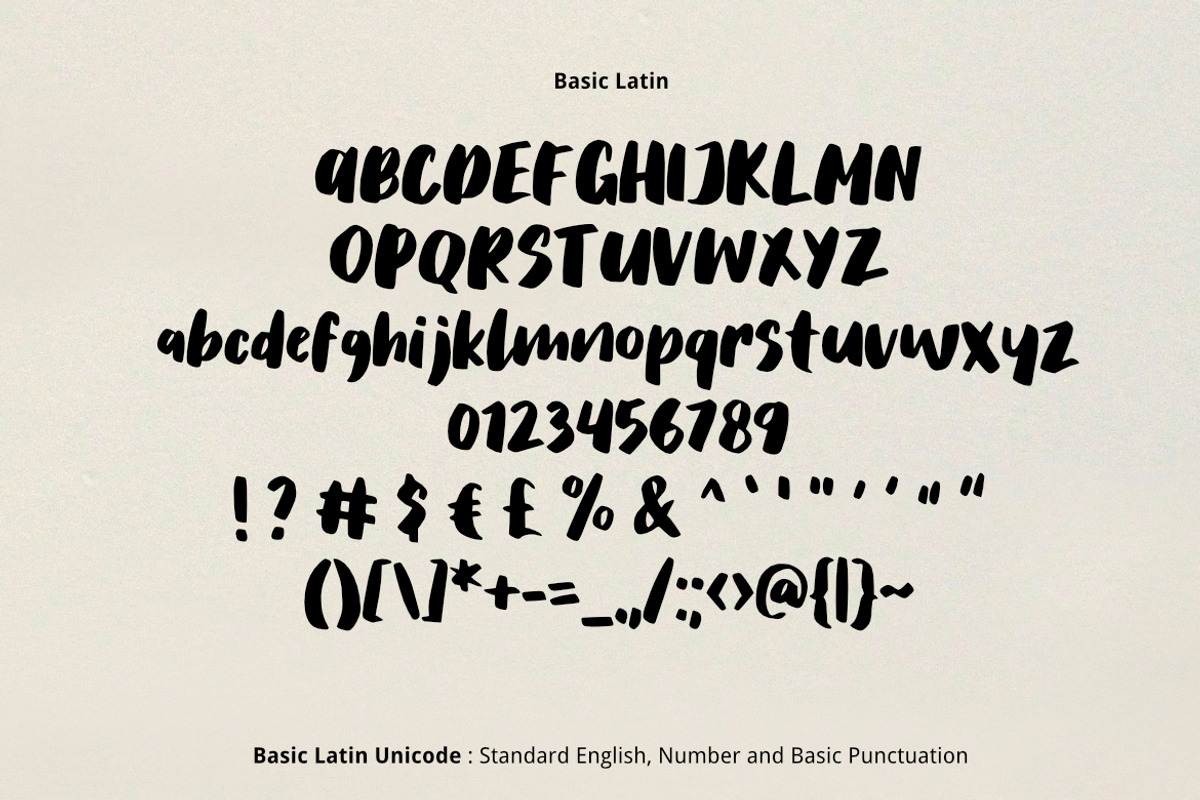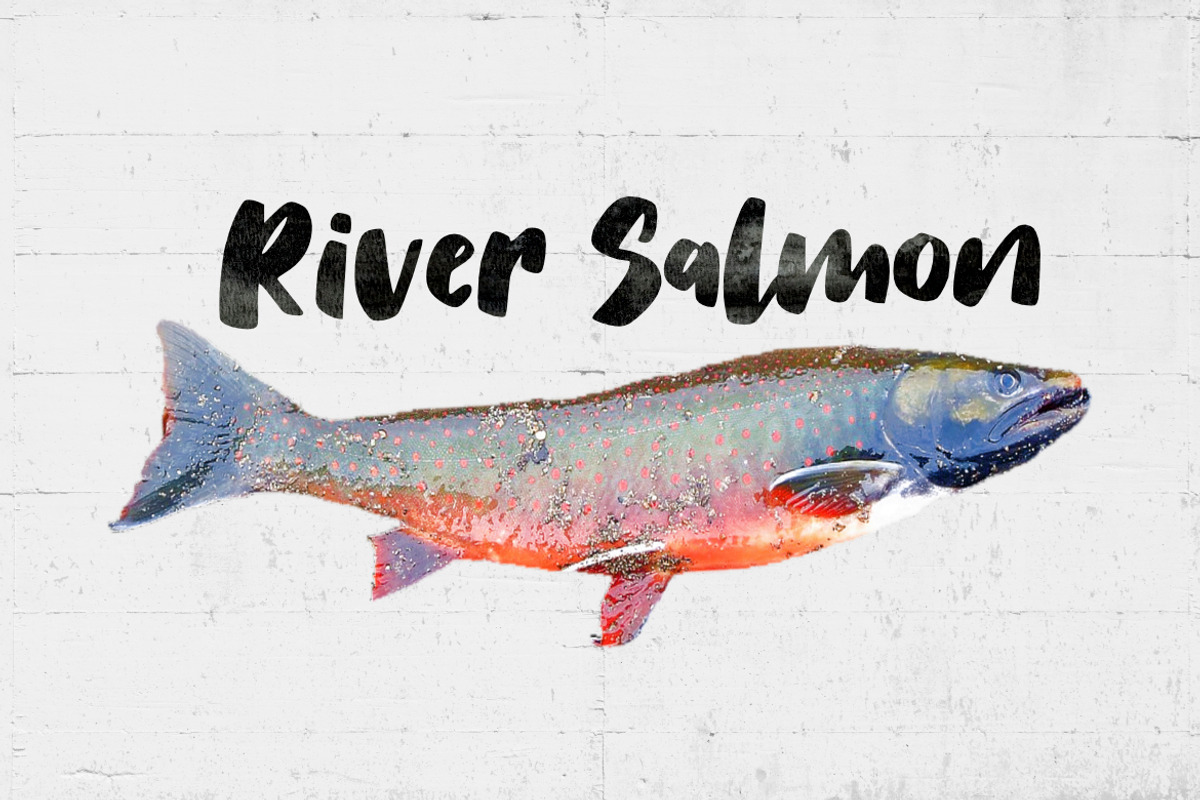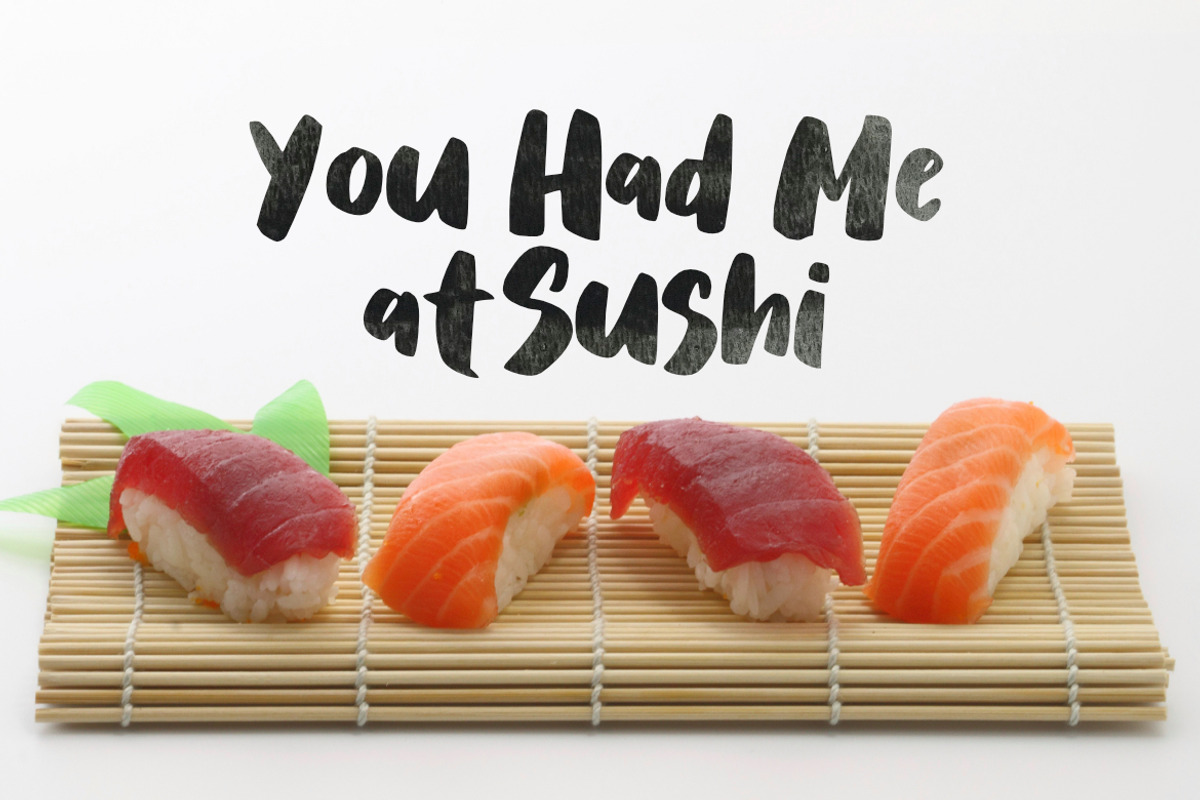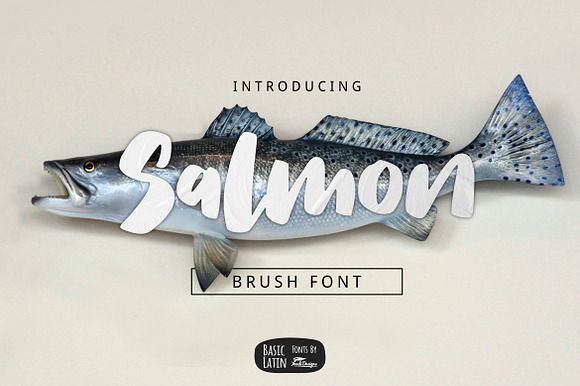
Salmon Brush Font
Salmon brush font is lovely , cute, simple, playful, multipurpose handwritten font , suitable for many project children book, quotes, logo , heading , title etc.
Salmon Brush Font by YandiDesigns fits naturally into Branding, posters, packaging, typography.